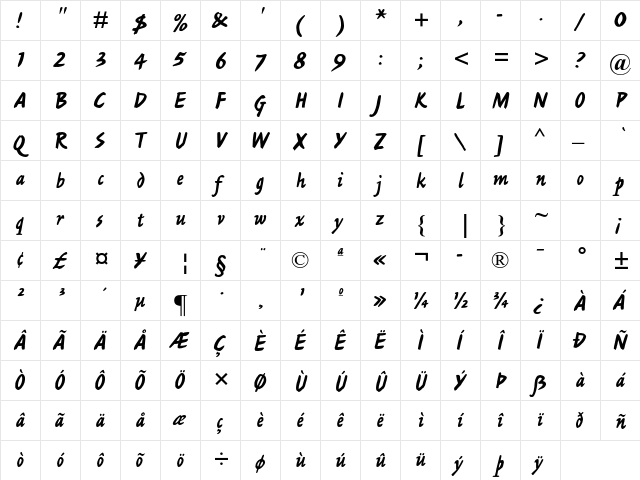
Ashley Script MT Std Regular
| Designer | Ashley Havindon |
Design Context for Ashley Script MT Std Typeface
Ashley Script MT Std brings a calligraphic fluidity to the page — its connecting strokes and expressive curves give it an unmistakably human quality.
Font Pairing: Combine Ashley Script MT Std with a simple geometric sans for maximum contrast — the tension between flowing curves and clean structure is a classic typographic pairing.
Pro Tip: Pair Ashley Script MT Std with a clean sans-serif for supporting text. The contrast between fluid script and geometric structure creates an elegant typographic hierarchy.